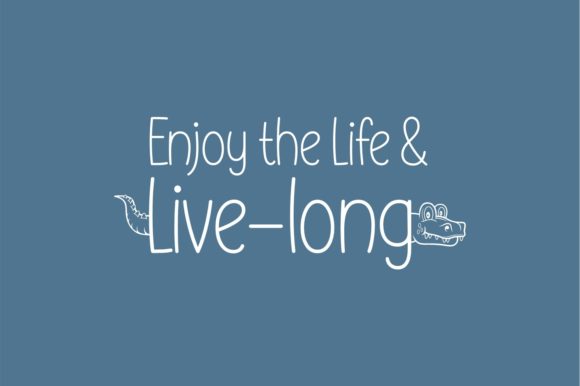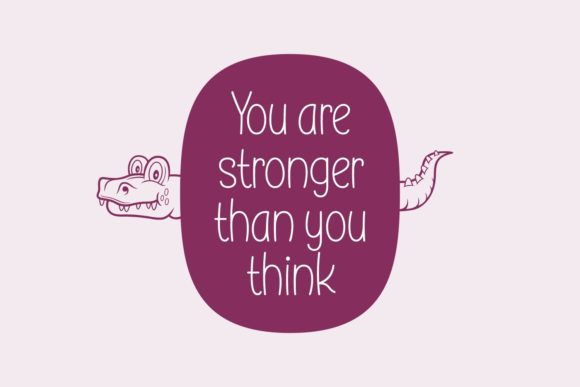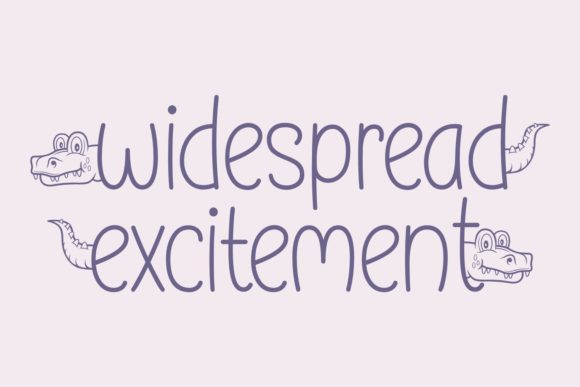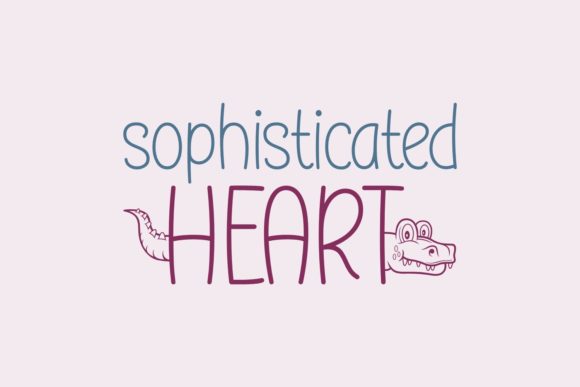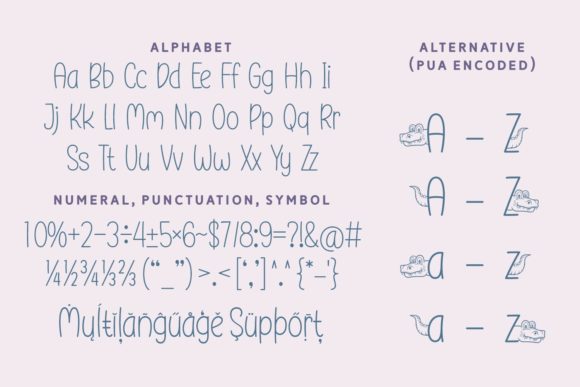
Croco Hide Font: Add a Scaly Twist to Your Designs
Are you tired of using the same old fonts in your designs? Look no further than the Croco Hide font, a fun and playful display font that’s perfect for adding a touch of whimsy to your projects. With its clean lines and unique crocodile-inspired elements, this font is sure to make your designs stand out from the crowd.
What is Croco Hide Font?
Croco Hide is a display font that features clean lines and a modern aesthetic. But what sets it apart from other fonts is its unique set of extra characters – all capital and lowercase letters featuring crocodile heads and tails. These fun and quirky elements make it perfect for a variety of projects, from kid’s crafts to birthday cards and school projects.
Key Features of Croco Hide Font
- Clean Lines: The standard font features clean lines and a modern aesthetic, making it perfect for a variety of design projects.
- Crocodile-Inspired Elements: The font includes all capital and lowercase letters featuring crocodile heads and tails, adding a fun and playful touch to your designs.
- Versatility: The Croco Hide font is perfect for a variety of projects, from kid’s crafts to birthday cards and school projects.
Uses for Croco Hide Font
The Croco Hide font is perfect for a variety of projects, including:
- Kid’s Crafts: The font’s fun and playful elements make it perfect for kid’s crafts, such as making cards, pictures, and other creative projects.
- Birthday Cards: Add a personal touch to your birthday cards with the Croco Hide font’s unique crocodile-inspired elements.
- School Projects: The font is perfect for school projects, such as making posters, presentations, and other visual aids.
- Graphic Design: The font’s clean lines and modern aesthetic make it perfect for graphic design projects, such as making logos, brochures, and other marketing materials.
Why Choose Croco Hide Font?
There are many reasons to choose the Croco Hide font for your next design project. Here are just a few:
- Unique and Playful: The font’s crocodile-inspired elements add a unique and playful touch to your designs.
- Versatile: The font is perfect for a variety of projects, from kid’s crafts to graphic design.
- High-Quality: The font is high-quality and designed to look great in any design.
- Experiment with Different Sizes: The Croco Hide font looks great in a variety of sizes, from small to large.
- Pair with Other Fonts: Try pairing the Croco Hide font with other fonts to create a unique and interesting design.
- Use for Headings and Titles: The font’s clean lines and modern aesthetic make it perfect for headings and titles.